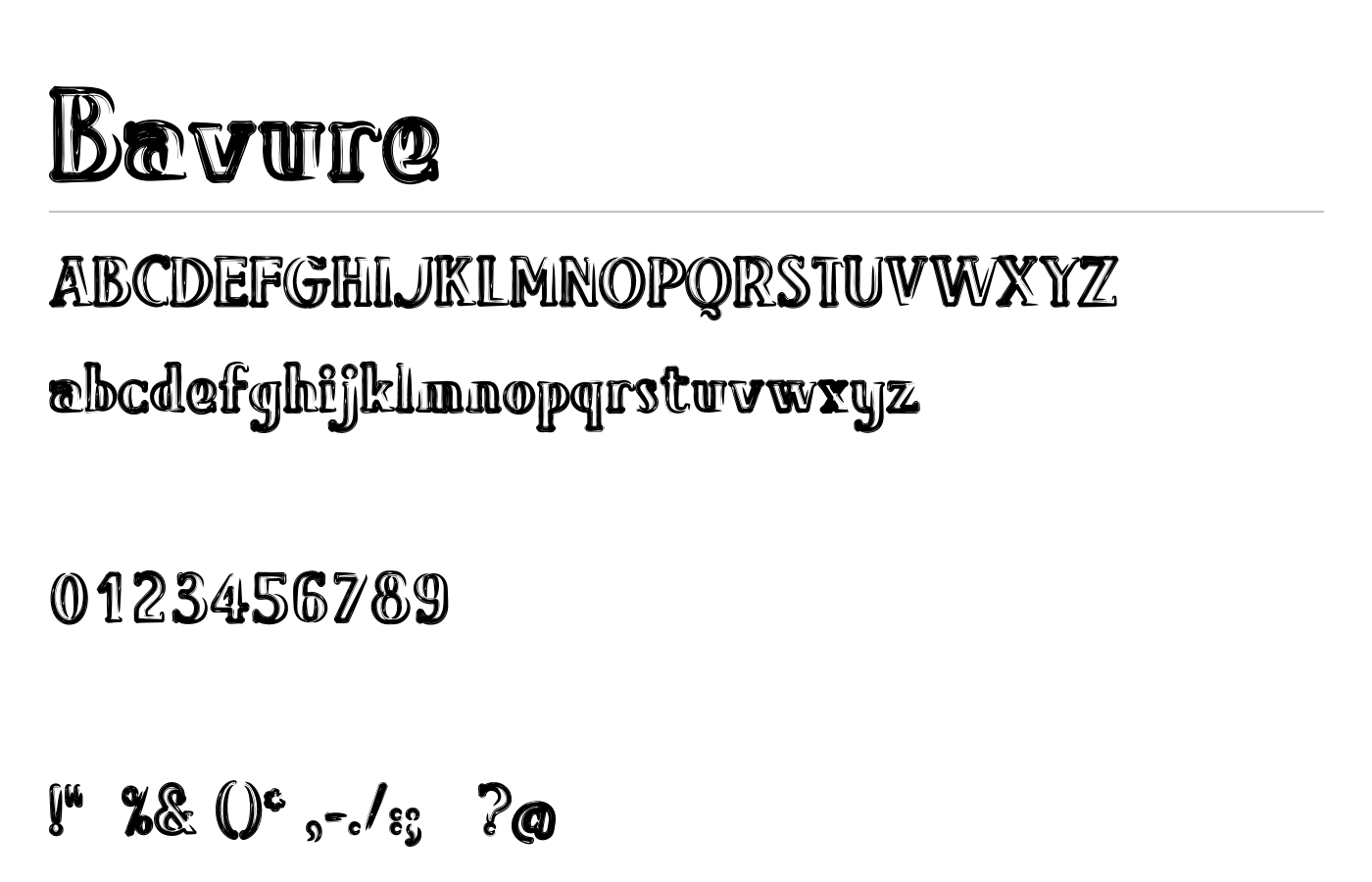
Bavure is a distinctive serif font with a bold, textured appearance that gives it a hand-carved, vintage feel. Its layered strokes and irregular edges bring a playful yet robust personality, making it ideal for eye-catching headlines, posters, and branding that seeks a nostalgic or artistic touch. This font stands out best when used to create a memorable, crafted aesthetic for creative projects and unique logos.
Bavure Font
About Bavure Font